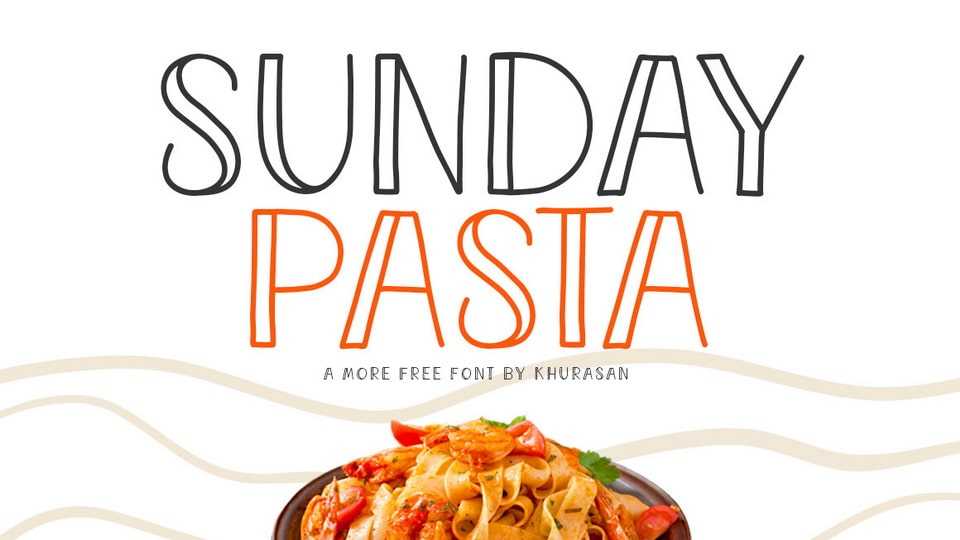
Download Sunday Pasta font, an organic simple handwritten typeface captures the essence of cartoon lettering. Its clean lines and straightforward design give your text an approachable and lighthearted feel.